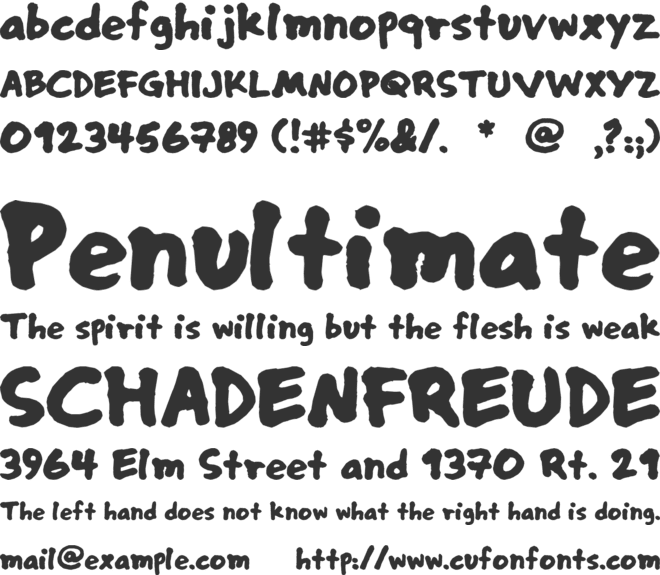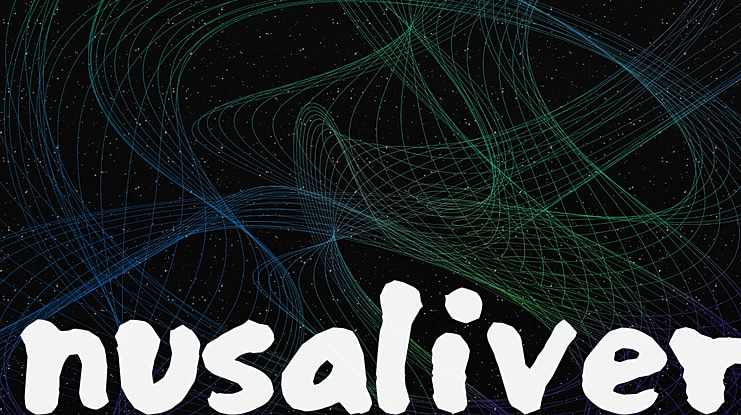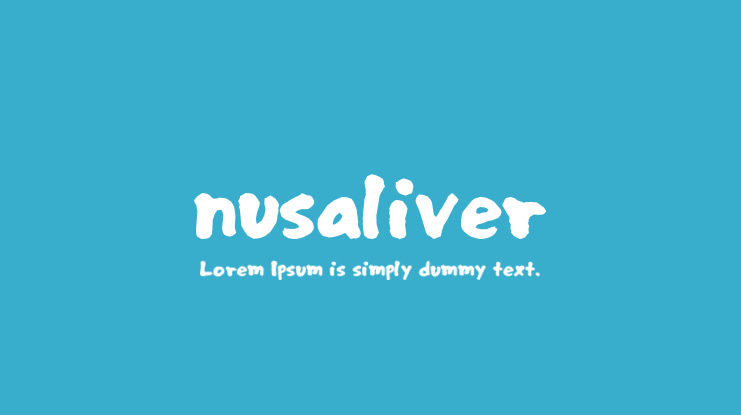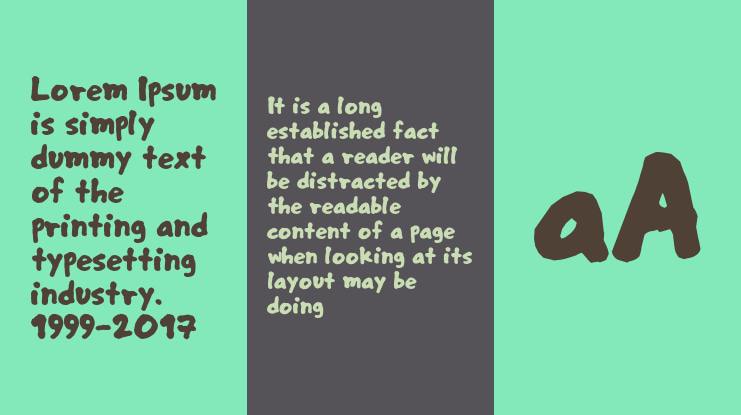
nusaliver Font
«dibujado»
_ _ _ __ _ _ ___ __ _ | | (_) __ __ ___ _ __ | '_ \ | | | | / __| / _` | | | | | \ \ / / / _ \ | '__| | | | | | |_| | \__ \ | (_| | | | | | \ V / | __/ | | |_| |_| \__,_| |___/ \__,_| |_| |_| \_/ \___| |_| * 1. is © 2003 «dibujado» | 2. was made using High-Logic's Font Creator Program 4.0, available free for 30 days ... there's a link somewhere in the 1001fonts pages, or here: http://www.high-logic.com/download.html** | 3. contains glyphs for enough characters for you to type up your homework with | 4. is free for non-commercial use | 5. works well for lost pet flyers
** ... made using a the old cut and paste technique, from a scan of hand-drawn letters using a particularly thick, wet blue STABILO permanent ink marker on recycled porous paper, then scaled "manually" ... it was cool to paste images directly into the program and have it convert the image into a vectorized glyph (other programs I've used let you paste, but then you have to perform a "trace" operation ... I didn't see options for the cut and paste so as to allow a fine tuning of the glyph to be inserted ... more later, once I finish the other font I'm making with this neato *free* program